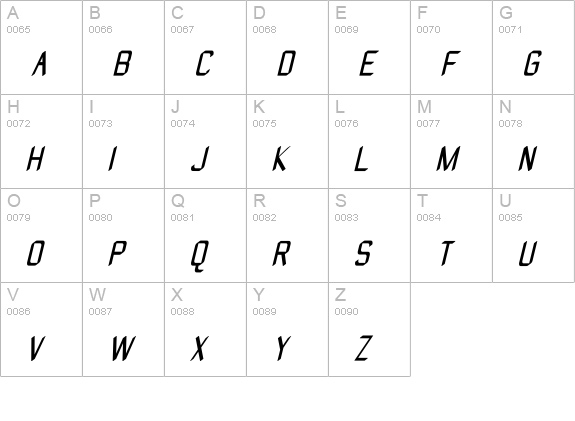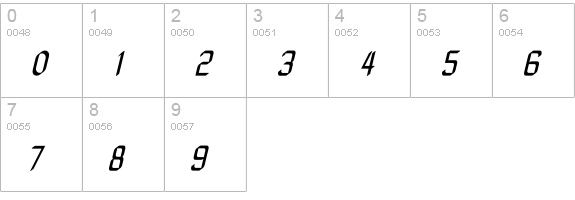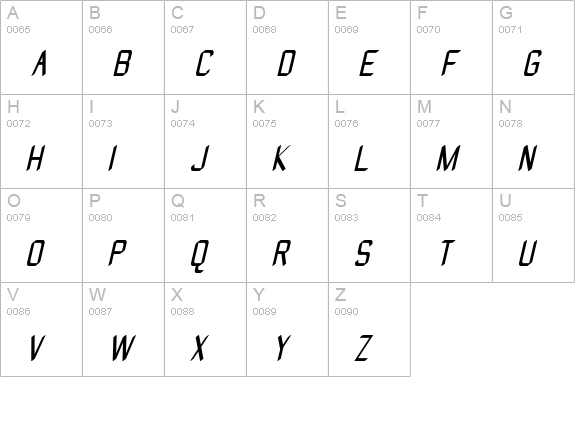
ZyphyteCondenseOblique Font Details
Introducing ZyphyteCondenseOblique font, a sleek and modern typeface designed to make your text stand out with its unique angled style. The condensed letterforms exude sophistication and professionalism, making it perfect for a wide range of design projects. This font features a subtle slant that adds a dynamic touch to your text, giving it a sense of movement and energy. The sharp, clean lines of ZyphyteCondenseOblique create a bold and impactful presence on the page, making it ideal for headlines, logos, and other attention-grabbing elements. What's even better is that ZyphyteCondenseOblique font is completely free to download at FontsMarket.com. With just a few clicks, you can add this stylish typeface to your collection and start using it in your projects right away. Don't miss out on the opportunity to elevate your designs with the contemporary flair of ZyphyteCondenseOblique font.